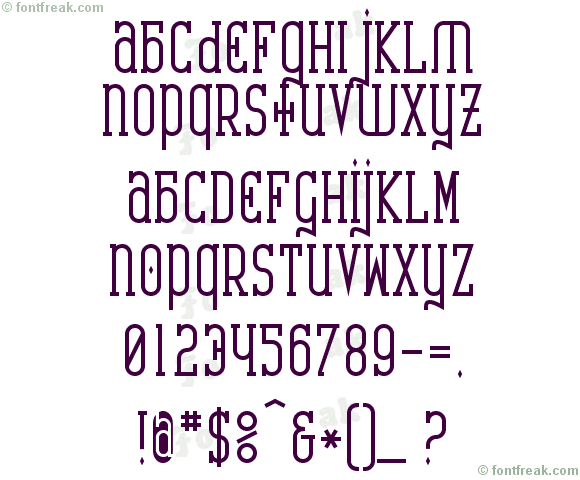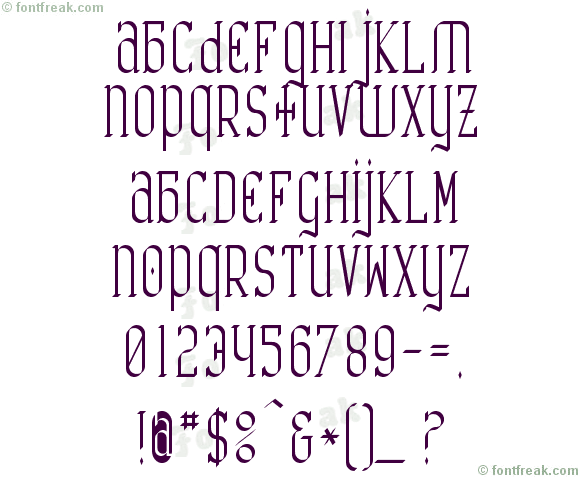
Catharsis Requiem Bold
Catharsis Requiem
About Catharsis Requiem
Catharsis Requiem is a striking display font that captivates with its unique blend of bold, theatrical elements and elegant simplicity. This typeface, categorized as a decorative font, showcases a distinctive serif style with a modern twist. Its stroke weight varies, creating a dynamic contrast that draws the eye while maintaining readability. The spacing is thoughtfully designed, allowing for a balanced appearance that is both visually appealing and functional. Decorative elements, including elongated serifs and subtle curves, add to its artistic flair, making it ideal for projects that require a touch of sophistication.
This font is perfect for a variety of creative applications. Its dramatic presence makes it an excellent choice for wedding invitations, where it can convey romance and elegance. Additionally, Catharsis Requiem shines in movie posters, where its bold characteristics can capture attention and evoke emotion. Restaurant menus can benefit from this font's stylish yet readable nature, helping to elevate the dining experience. Content creators will find it a valuable asset for branding materials and promotional graphics, as it effectively communicates a sense of creativity and professionalism.
Targeted toward graphic designers, small business owners, and content creators, Catharsis Requiem offers versatility and charm that can enhance any project. Whether you’re crafting a unique brand identity or designing eye-catching marketing materials, this font provides the tools needed to make a lasting impression.